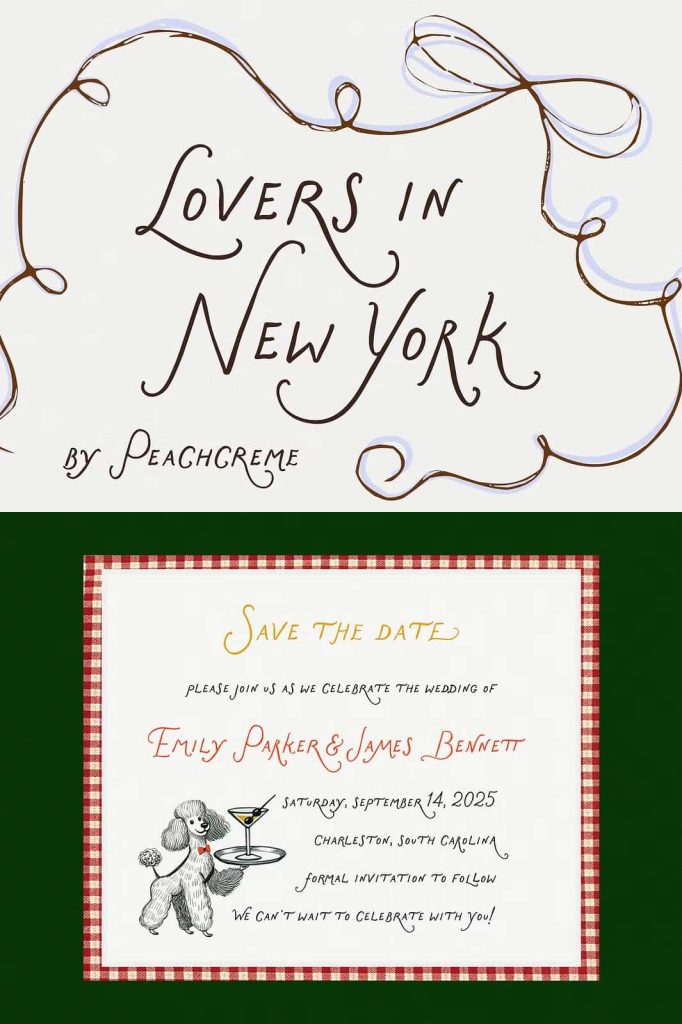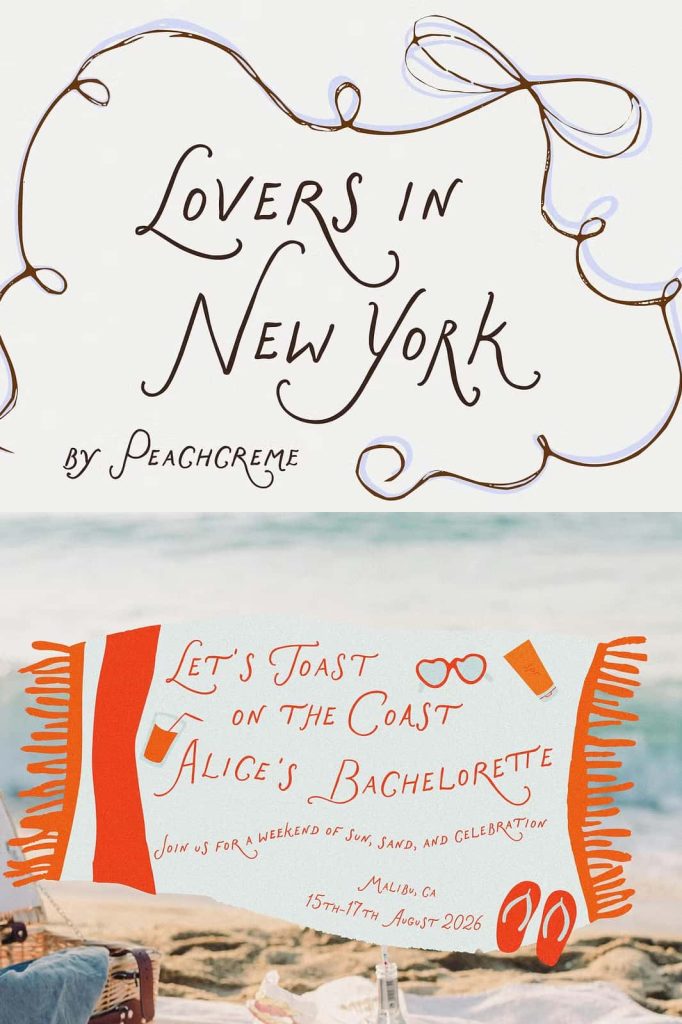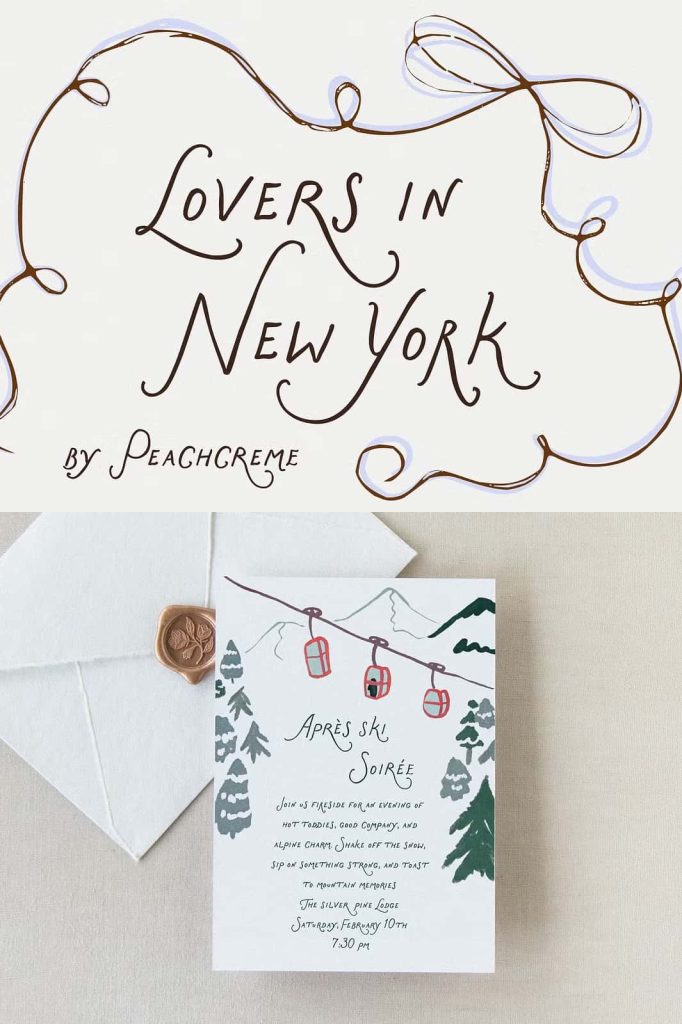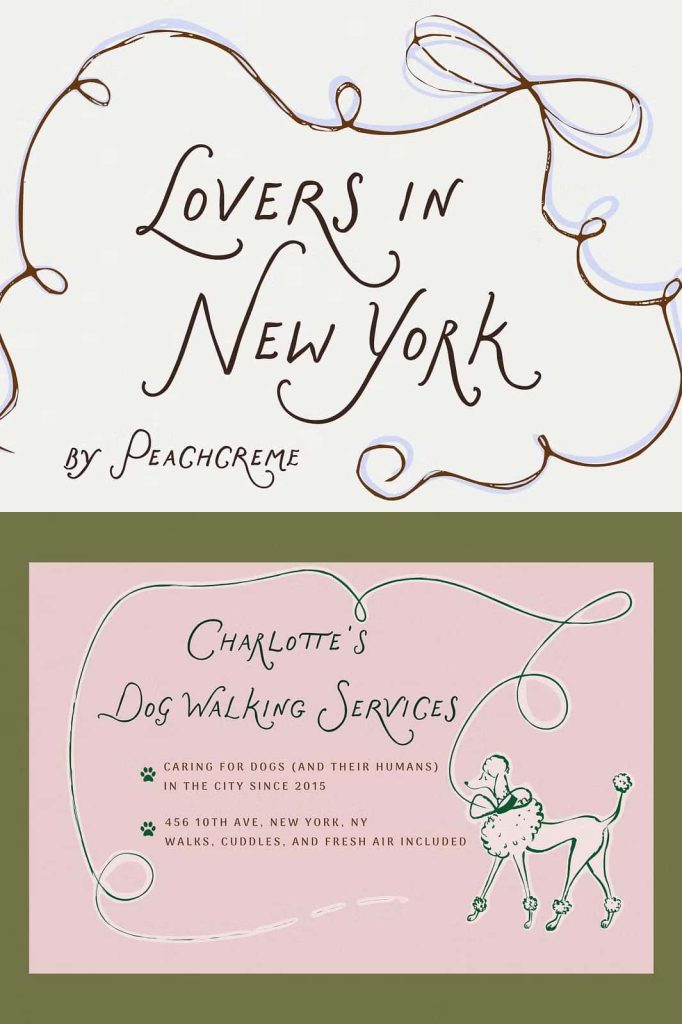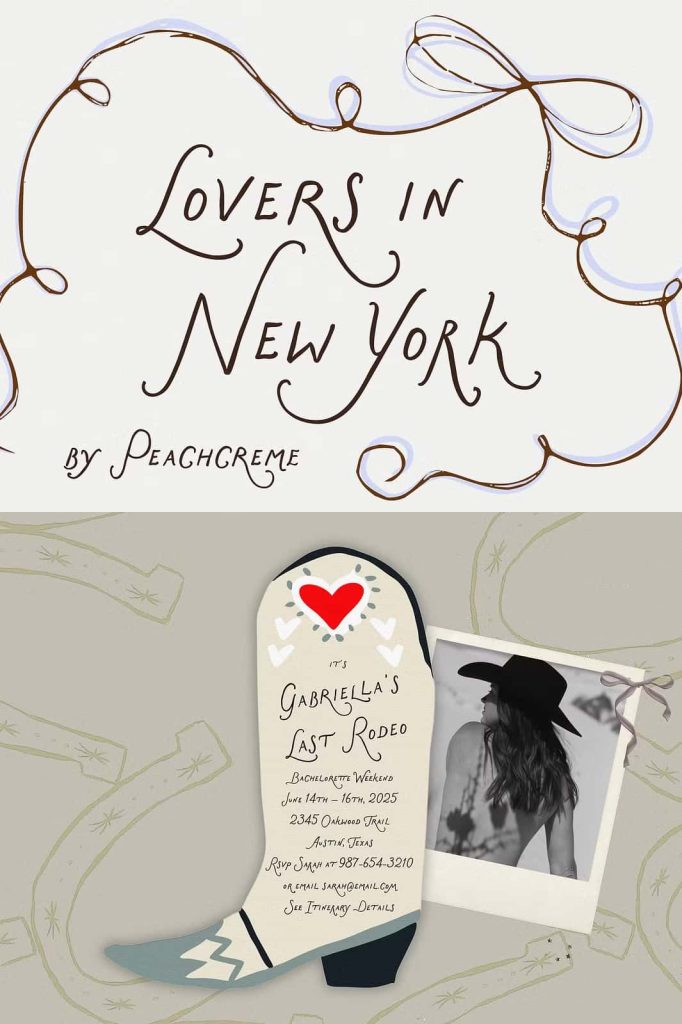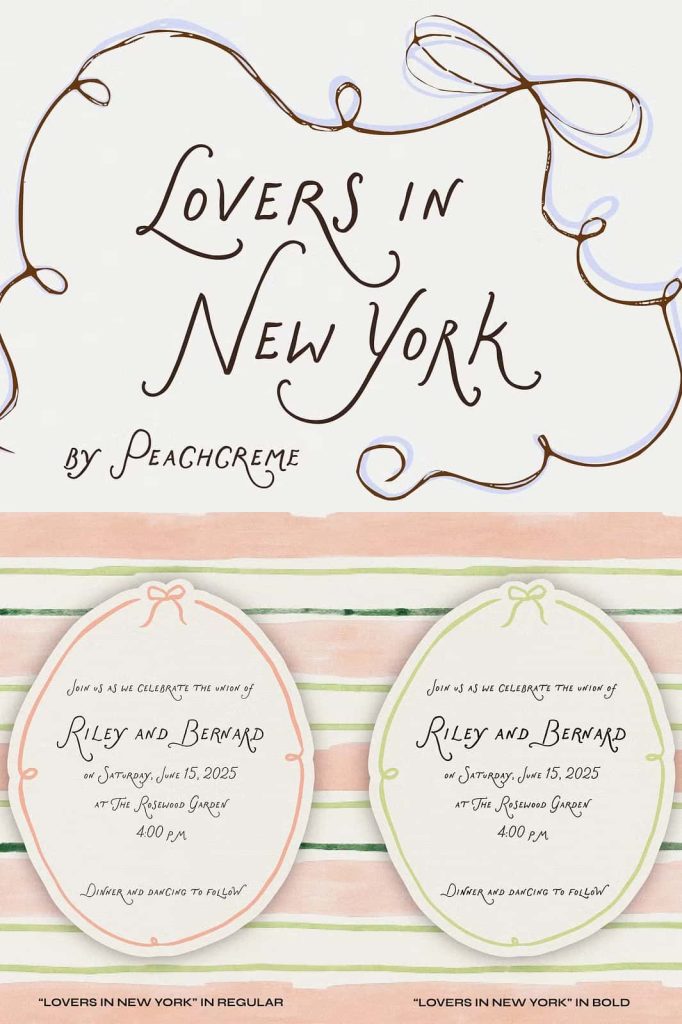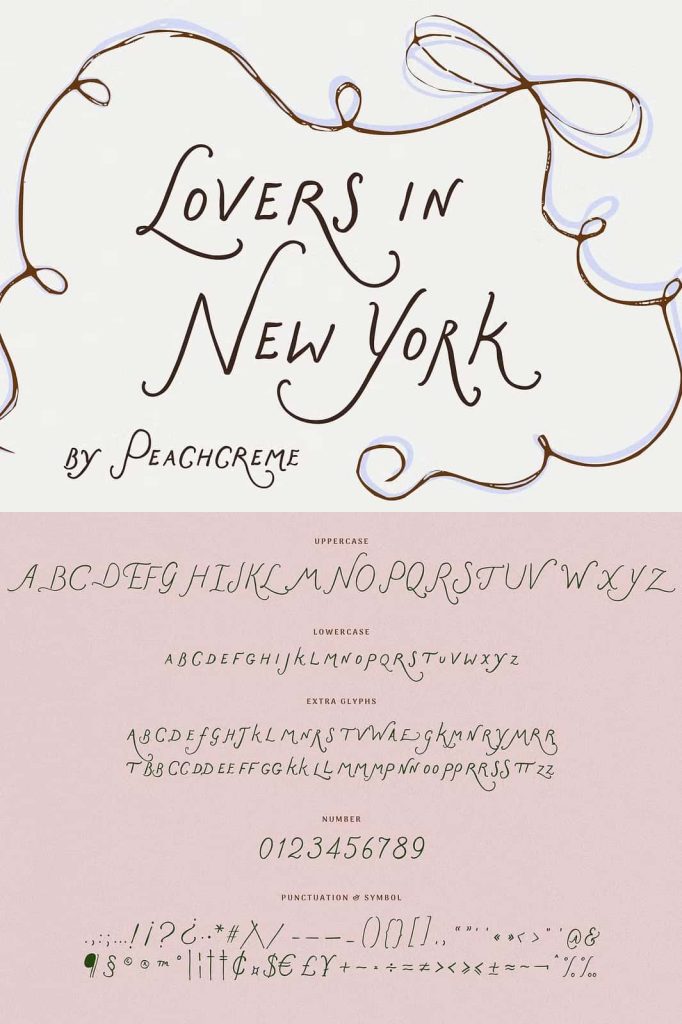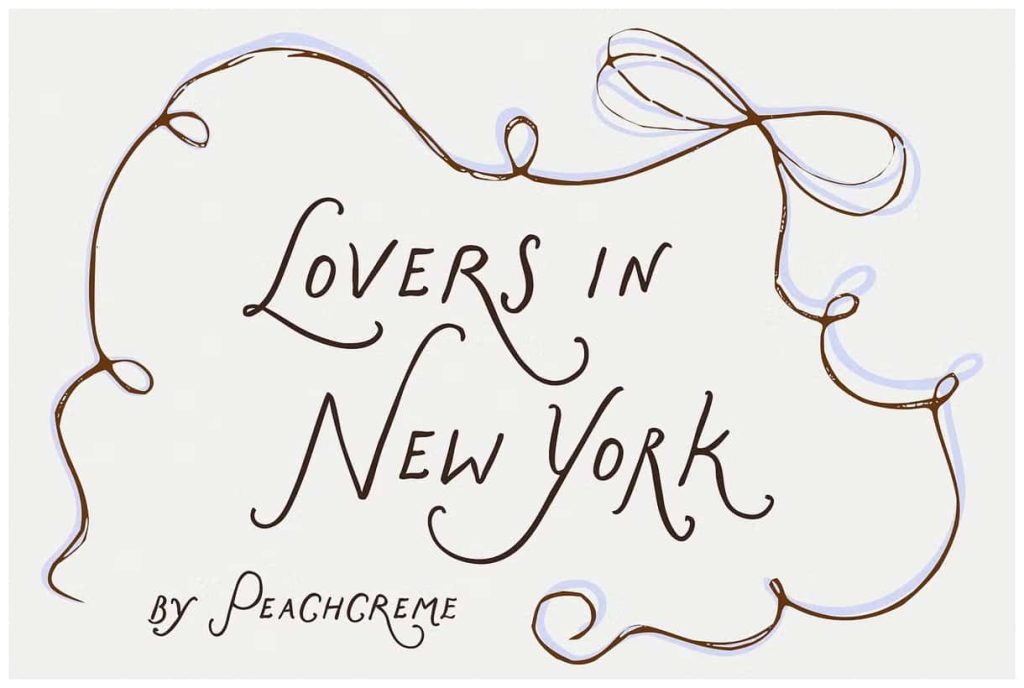
Lovers in New York
Lovers in New York is a font typeface with a lively, hand-drawn quality. Its fluid strokes and organic details create a sense of movement, striking a balance between elegance and informality. Subtle irregularities add charm without feeling excessive.